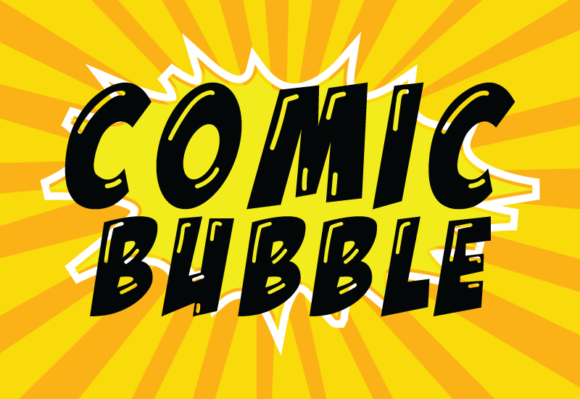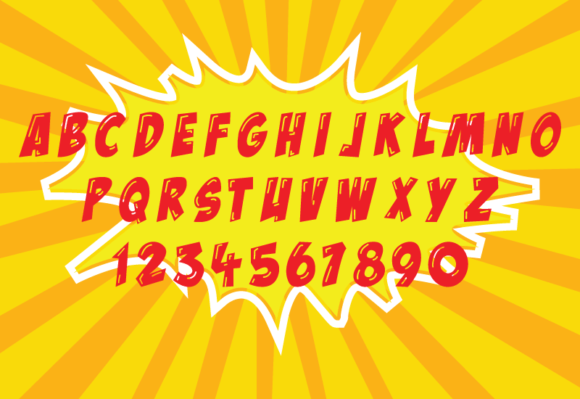
Discover the Playful World of Comic Bubble Font
Are you ready to add a dash of fun and excitement to your designs? Look no further than the Comic Bubble Font, a unique and captivating typography that brings the spirit of classic comics to life. With its distinctive bubble style and playful feel, this font is perfect for designers, crafters, and creatives looking to inject a dose of creativity into their projects.
The Essence of Comic Bubble Font
Comic Bubble Font is a carefully crafted typography that embodies the essence of classic comics and the effervescence of bubble style. Its playful and professional feel makes it an ideal choice for a wide range of designs, from children’s projects to illustrations, and more. The font’s quirky and fun nature is balanced by a professional touch, making it a versatile choice for designers and crafters.
Perfect for Children’s Projects
When it comes to creating engaging and interactive content for children, the right typography can make all the difference. Comic Bubble Font is specifically designed to capture the attention of young minds and spark their imagination. Its playful and fun nature makes it perfect for:
- Children’s books and storybooks
- Educational materials and worksheets
- Activity sheets and coloring books
- Kids’ party invitations and decorations
Breathe Life into Illustrations
Illustrations come alive with Comic Bubble Font. The font’s distinctive bubble style and playful feel add a touch of personality to any illustration, making it perfect for:
- Cartoon-style illustrations and comics
- Character designs and animations
- Graphic novels and manga
- Digital art and graphic designs
Unleash Your Creativity
Comic Bubble Font is more than just a typography – it’s a creative tool that can help you unleash your imagination and bring your designs to life. With its quirky and professional feel, this font is perfect for:
- Signs and posters
- Brochures and flyers
- Branding and packaging designs
Why Choose Comic Bubble Font?
So, why choose Comic Bubble Font over other typographies? Here are just a few reasons:
- Unique and distinctive: Comic Bubble Font is a one-of-a-kind typography that stands out from the crowd.
- Playful and professional: The font’s quirky nature is balanced by a professional touch, making it perfect for a wide range of designs.
- Versatile: Comic Bubble Font can be used for a variety of designs, from children’s projects to illustrations and more.
- Easy to read: Despite its playful nature, Comic Bubble Font is easy to read and understand, making it perfect for body text and headings.
Get Creative with Comic Bubble Font
Ready to immerse yourself in the fun and lively world of Comic Bubble Font? With its unique and distinctive style, this font is sure to spark your imagination and bring your designs to life. Whether you’re a designer, crafter, or creative, Comic Bubble Font is the perfect choice for anyone looking to add a dash of fun and excitement to their projects.
In conclusion, Comic Bubble Font is a captivating typography that embodies the spirit of classic comics and the effervescence of bubble style. With its playful and professional feel, this font is perfect for designers, crafters, and creatives looking to inject a dose of creativity into their projects. Whether you’re working on children’s projects, illustrations, or more, Comic Bubble Font is the perfect choice for anyone looking to unleash their imagination and bring their designs to life.